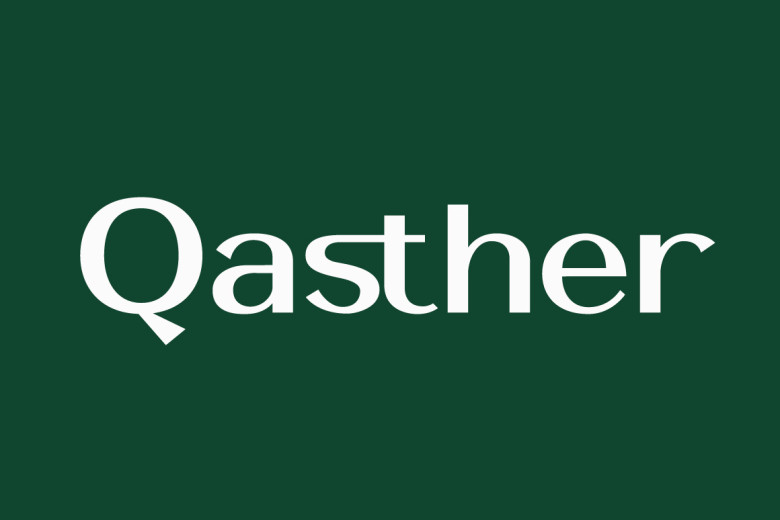
Introducing the new Qashter Modern Ligature Sans-Serif. Qashter is a classy, modern Sans-Serif font. This font is equipped with ligature features, uppercase letters, lowercase letters, numbers and support for other languages. This font is modern and elegant and works great for website, logos, magazines, social media.
This font it’s matched and ready to be used together for your next design! For those of you who need a touch of elegance, stylish, classy, chic and modernity for your designs, this font is made for you!
Qasther Sans Serif Font